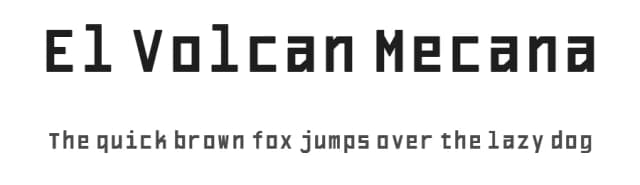
About El Volcan Font
Family for titles based on ranch signs of the Province of Buenos Aires manufactured by the metallurgical El Volcán (Tandil, Buenos Aires, Argentina). The research on which the design is based was carried out by Octavio Osores. Geometric, uniform stroke and monospaced for the sana serif and Mecana styles, and the normal and black variables. The sign coverage corresponds to Dogma 580, by Vicente Lamónaca
El Volcan Font is a versatile sans-serif font that works for both headings and body text. Pair it with a contrasting serif or slab serif font to add visual interest and a clear distinction between titles and body copy.
El Volcan Font